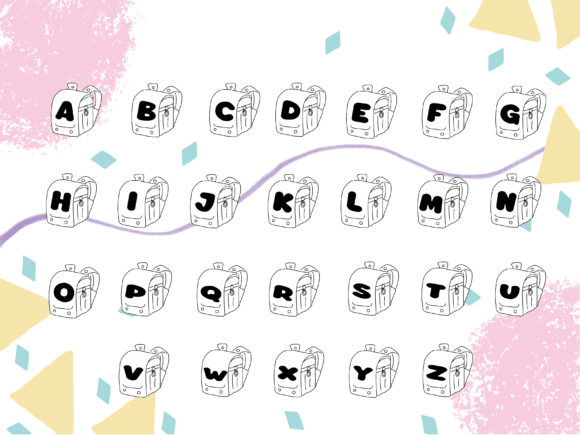
Introducing Backpackin Font: Add a Touch of Whimsy to Your Designs
Are you tired of using the same old fonts in your designs? Do you want to add a touch of creativity and playfulness to your projects? Look no further than Backpackin Font, a cute dingbats font featuring a collection of whimsical and unique symbols and icons. In this article, we’ll take a closer look at Backpackin Font and explore how it can elevate your designs to the next level.
What is Backpackin Font?
Backpackin Font is a dingbats font that offers a range of artistic and creative symbols and icons. The font is designed to add a touch of whimsy and playfulness to your designs, making it perfect for projects that require a bit of flair. With Backpackin Font, you can add a unique and eye-catching element to your designs, setting them apart from the crowd.
Key Features of Backpackin Font
So, what makes Backpackin Font so special? Here are just a few of its key features:
- Whimsical and unique symbols and icons: Backpackin Font features a collection of creative and artistic symbols and icons that are sure to add a touch of personality to your designs.
- Perfect for creative projects: Whether you’re working on an invitation, greeting card, or any other project that requires a bit of flair, Backpackin Font is the perfect choice.
- Playful and attractive designs: The font’s playful and attractive designs are sure to captivate and delight your audience, making your projects stand out from the crowd.
How to Use Backpackin Font in Your Designs
Using Backpackin Font in your designs is easy. Here are a few ways you can incorporate the font into your projects:
- Invitations: Add a touch of whimsy to your invitations with Backpackin Font’s creative symbols and icons. Perfect for birthday parties, weddings, and other special occasions.
- Greeting cards: Make your greeting cards stand out with Backpackin Font’s playful and attractive designs. Perfect for holidays, birthdays, and other special occasions.
- Social media graphics: Add a touch of personality to your social media graphics with Backpackin Font’s unique symbols and icons.
- Branding and packaging: Use Backpackin Font to add a touch of creativity to your branding and packaging. Perfect for businesses that want to stand out from the crowd.
Benefits of Using Backpackin Font
So, why should you use Backpackin Font in your designs? Here are just a few benefits of using this unique font:
- Adds a touch of creativity: Backpackin Font adds a touch of creativity and playfulness to your designs, making them stand out from the crowd.
- Perfect for creative projects: The font is perfect for creative projects that require a bit of flair, such as invitations, greeting cards, and social media graphics.
Tips and Tricks for Using Backpackin Font
Here are a few tips and tricks for using Backpackin Font in your designs:
- Experiment with different colors: Backpackin Font looks great in a range of colors, so don’t be afraid to experiment and find the perfect color for your design.
- Use it sparingly: While Backpackin Font is a fun and creative font, it’s best to use it sparingly to avoid overwhelming your design.
- Pair it with other fonts: Backpackin Font pairs well with other fonts, so don’t be afraid to experiment with different font combinations.
| Font Name | Backpackin Font |
| Author | Happy Bamboo |
In conclusion, Backpackin Font is a unique and creative dingbats font that adds a touch of whimsy and playfulness to your designs. With its collection of artistic and creative symbols and icons, this font is perfect for projects that require a bit of flair. Whether you’re working on an invitation, greeting card, or social media graphic, Backpackin Font is sure to captivate and delight your audience. So why not give it a try and see the difference it can make in your designs?